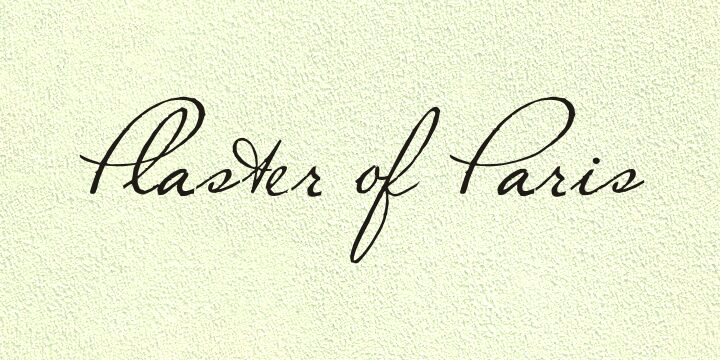
Plaster of Paris
Plaster of Paris is a captivating calligraphic font that exudes a sense of elegance and sophistication. Designed by Intellecta Design, this font boasts a fluid, cursive aesthetic with striking flourishes and smooth transitions between strokes. The bold, expressive letterforms convey a sense of refined artistry, making it an ideal choice for a variety of design applications, from high-end branding to prestigious event invitations. Plaster of Paris seamlessly blends traditional calligraphic techniques with a modern sensibility, creating a timeless and versatile typographic solution.
Its versatility allows it to be employed across a wide range of design contexts, from editorial layouts to packaging design, where its unique character can lend an air of distinction and refinement.